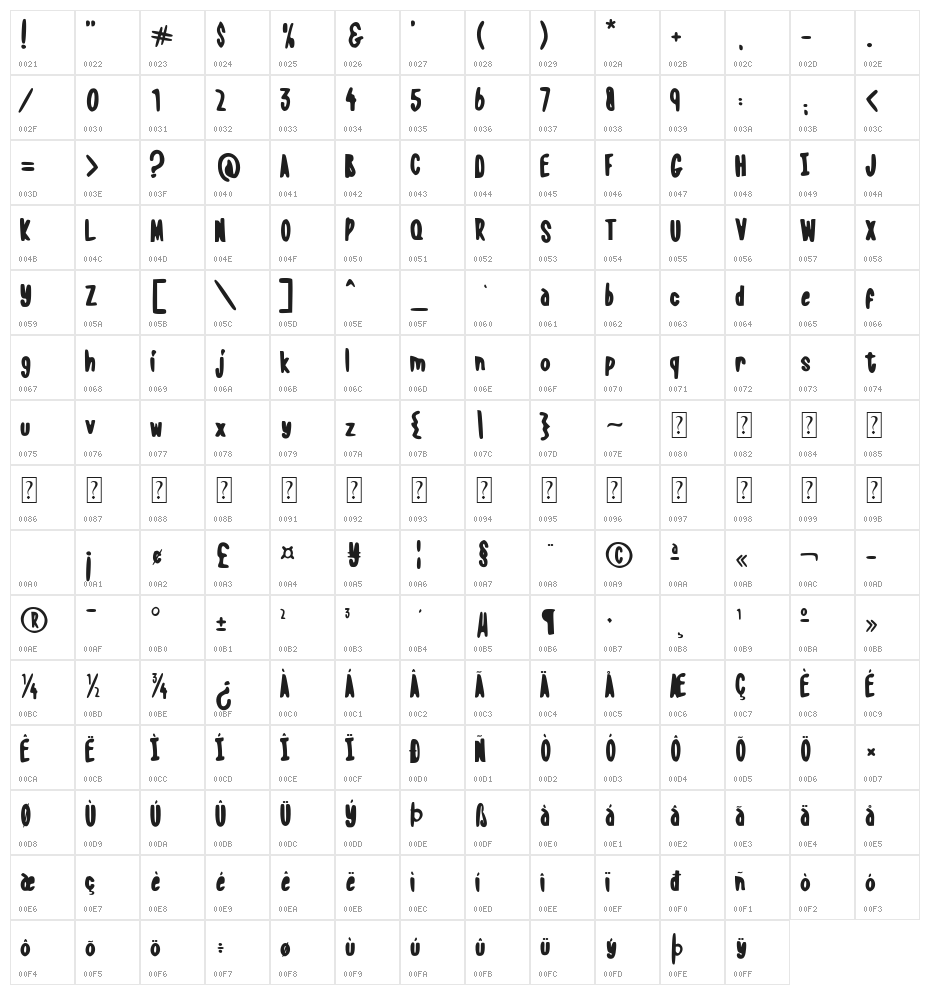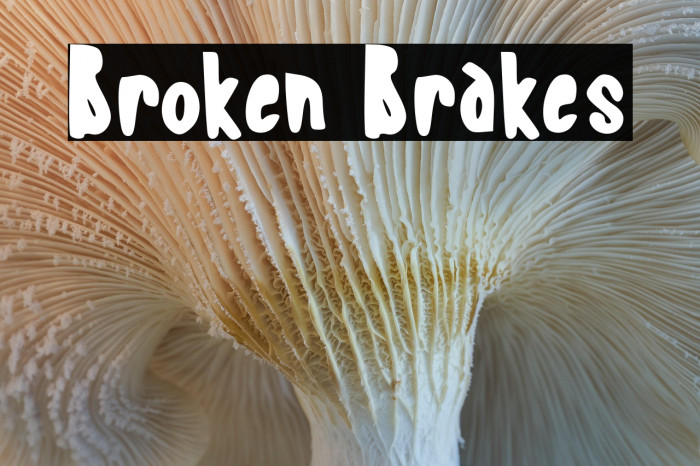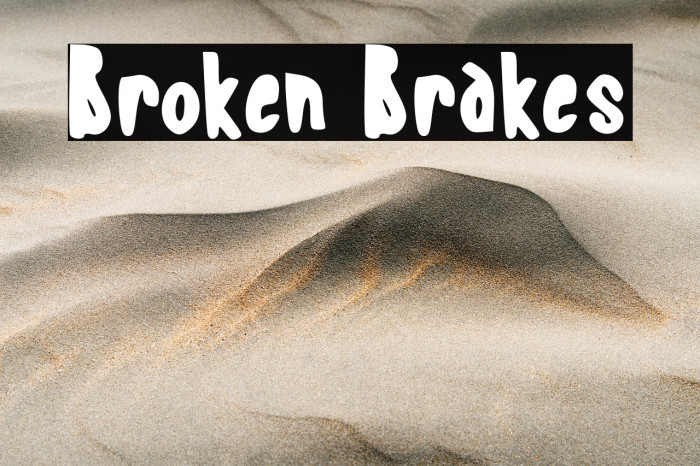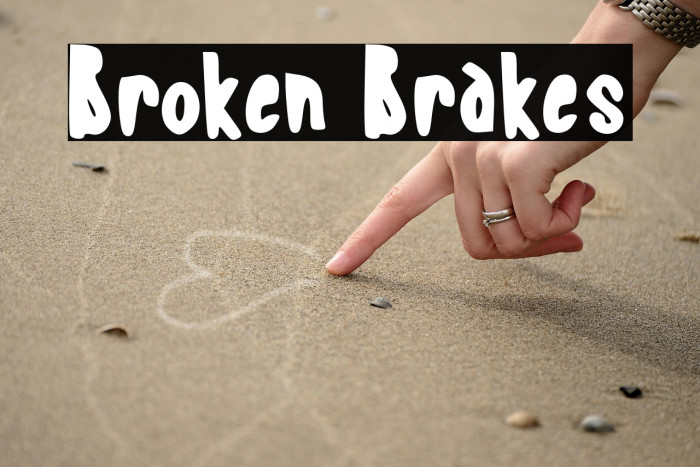
Broken Brakes Font
Broken Brakes Description
This font features a playful and bold style with a hand-drawn appearance. The characters are thick and rounded, giving off a casual and friendly vibe. The uppercase and lowercase letters maintain a consistent weight, while the numbers and special characters follow the same playful design. The strokes are uneven, adding to the whimsical and informal look. This font is ideal for projects that require a fun and approachable aesthetic, such as children's books, party invitations, or playful branding materials.
Overall StylePlayful, Casual, Whimsical
Proposed ProjectsChildren's books, party invitations, playful branding materials, posters, and social media graphics.